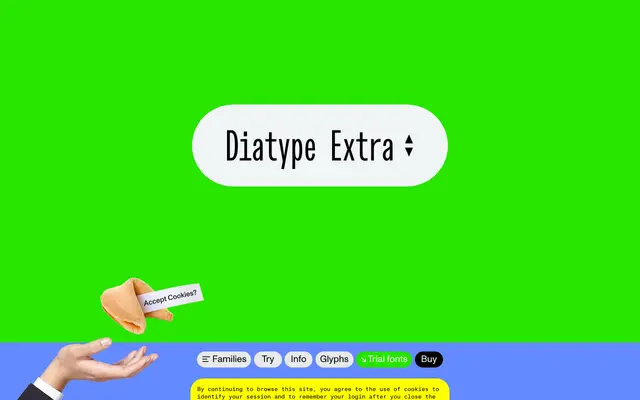
ABC Diatype Extra
Dinamo Typefaces · Dinamo (Johannes Breyer & Fabian Harb, with Elias Hanzer, Erkin Karamemet, Renan Rosatti, Andree Paat) · 2022
A monospaced and semi-monospaced extension of Diatype in Compressed and Condensed widths for code, data and narrow UI.
An extension of Diatype by Johannes Breyer and Fabian Harb with Elias Hanzer, Erkin Karamemet, Renan Rosatti and Andree Paat that adds Compressed and Condensed widths to both the Mono and Semi-Mono cuts. The result fills out the Swiss neo-grotesque system for environments where vertical space is tight: code listings, tabular data, dashboard chrome and narrow UI columns.
Dinamo describes Diatype Extra as the monospaced and semi-monospaced extension of Diatype, adding Compressed and Condensed widths to the Mono and Semi-Mono cuts so the Swiss neo-grotesque system covers tabular and code settings at narrow measures.